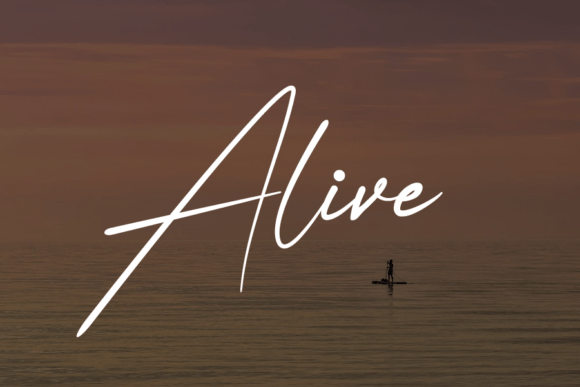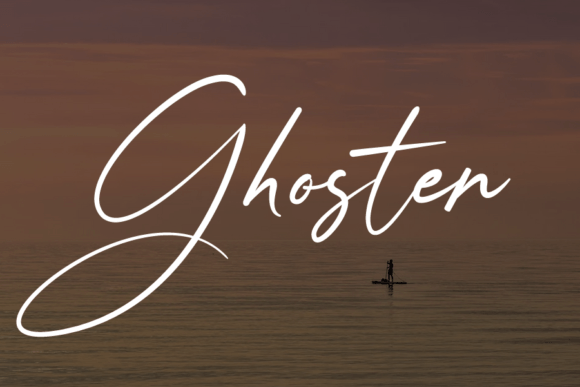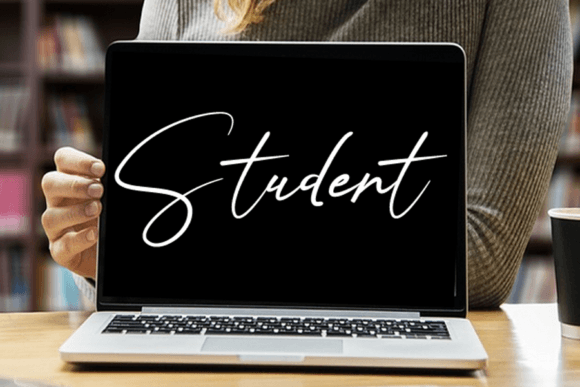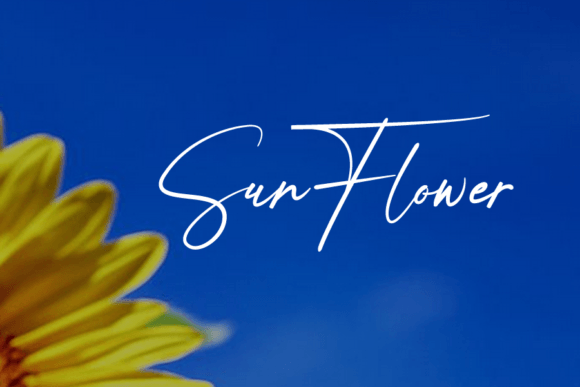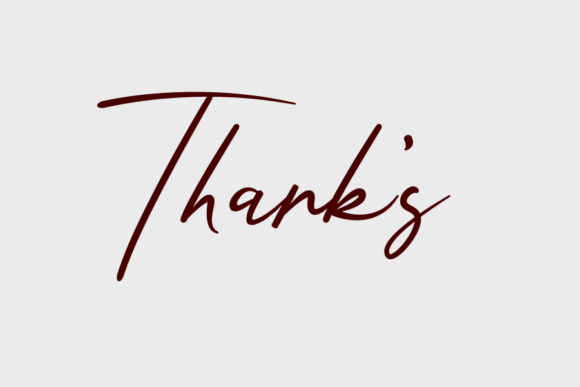
Introducing Ambasador Font: The Sweet and Beautiful Handwritten Font
Are you looking for a font that can add a touch of luxury and elegance to your design projects? Look no further than Ambasador Font! This sweet and beautiful handwritten font is perfect for designers and crafters who want to create stunning visuals that stand out from the crowd.
What Makes Ambasador Font Special?
Ambasador Font features characters that dance along the baseline, giving it a playful and whimsical feel. The font’s unique design makes it perfect for a variety of design projects, from wedding invitations and branding materials to social media graphics and more. With Ambasador Font, you can add a touch of sophistication and glamour to any design project.
Key Features of Ambasador Font
- Handwritten font: Ambasador Font is a beautiful handwritten font that adds a personal touch to any design project.
- Luxury spark: The font’s unique design and elegant feel make it perfect for adding a touch of luxury to any design project.
- Characters that dance along the baseline: The font’s playful and whimsical design makes it perfect for creating visually appealing graphics.
- Versatile: Ambasador Font can be used for a variety of design projects, from wedding invitations and branding materials to social media graphics and more.
Why Designers and Crafters Love Ambasador Font
Designers and crafters love Ambasador Font for its unique and elegant design. The font’s handwritten feel and playful characters make it perfect for creating visually appealing graphics that stand out from the crowd. With Ambasador Font, designers and crafters can:
- Create stunning wedding invitations: Ambasador Font is perfect for creating beautiful and elegant wedding invitations that set the tone for the big day.
- Develop luxury branding materials: The font’s elegant feel and sophisticated design make it perfect for creating luxury branding materials that reflect a brand’s high-end image.
- Design engaging social media graphics: Ambasador Font can be used to create visually appealing social media graphics that grab attention and drive engagement.
How to Use Ambasador Font
- Experiment with different colors and textures: Ambasador Font looks great in a variety of colors and textures. Experiment with different combinations to find the one that works best for your design project.
- Pair with other fonts: Ambasador Font can be paired with other fonts to create a unique and visually appealing design. Try pairing it with a bold sans-serif font for a striking contrast.
- Use it for headlines and titles: Ambasador Font is perfect for headlines and titles. Its elegant feel and sophisticated design make it perfect for grabbing attention and adding a touch of luxury to any design project.
Ambasador Font is a sweet and beautiful handwritten font that can add a touch of luxury and elegance to any design project. With its unique design and elegant feel, it’s perfect for designers and crafters who want to create stunning visuals that stand out from the crowd. Whether you’re creating wedding invitations, branding materials, or social media graphics, Ambasador Font is the perfect choice.